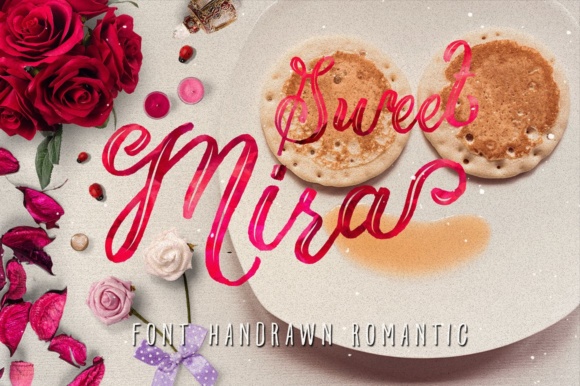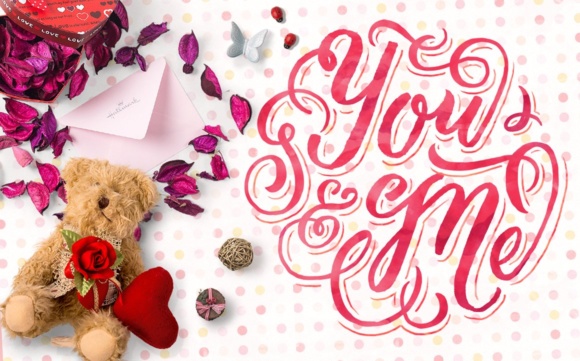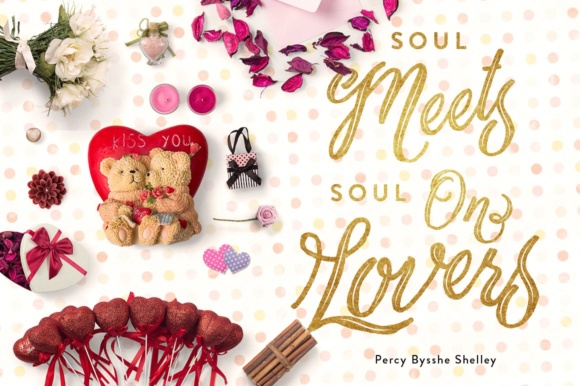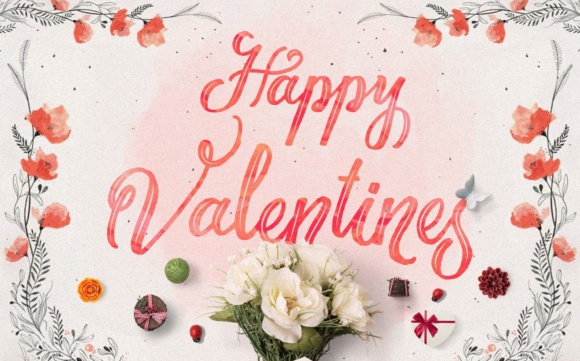
HomeScript FontsMira Font Script Fonts Mira Font FacebookXPinterestWhatsApp Mira Font Poster 2 Mira Font Poster 3 Mira Font Poster 4 Mira Font Poster 5 About Mira Font The Mira is a hand drawn typeface with a romantic style. It comes with a graphic water-colored swirls bonus pack. DOWNLOAD ON CREATIVE FABRICAThis font is sold and delivered by Creative Fabrica. Font Canyon may earn a commission if you buy through this link. People also explored Christmas Sheep Font Bastiolla Font Wynfreda Font Vintage Font Hamburg Font Snowman Font Adam Script Font Exclamation Mark Font The Knicks Fly Font 274 0 TagsMira Font Previous articleNatalia Script FontNext articleHimalaya Set Font LEAVE A REPLY Cancel reply Comment: Please enter your comment! Name:* Please enter your name here Email:* You have entered an incorrect email address! Please enter your email address here Website: Save my name, email, and website in this browser for the next time I comment. Personal Use Free Mini Story Personal Use Free Read more about this font Breakaway Personal Use Free Read more about this font Abuget Free Script Personal Use Free Read more about this font Zojihun Personal Use Free Read more about this font BLOG How to Install and Use Fonts on Windows, macOS, and Web Projects How to Install and Use Fonts on Windows, macOS, and Web Projects Fonts are a crucial part of design and branding. Whether you’re designing a... Where to Buy American Fonts Online in 2024 Free Fonts Risk: Why Free Fonts Can Be Dangerous for Designers Exploring Font Trends